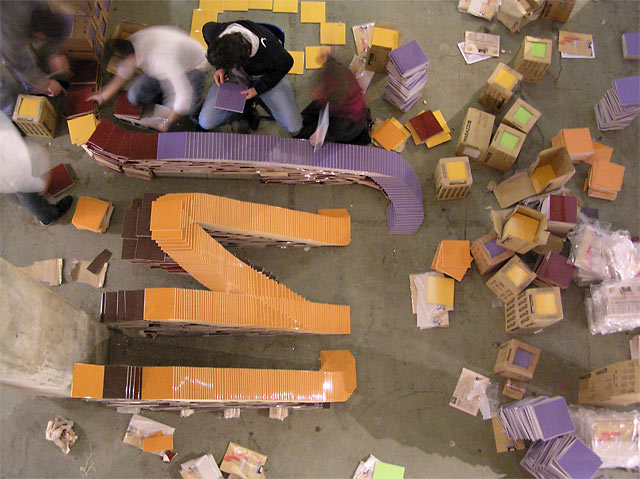
No sketching, just building a big 3D maquette. From the ground floor it looks like an architectural illegible maquette. Many hours of carefully placing the tiles, replacing them all again, and steadily the piece gets towards its end.